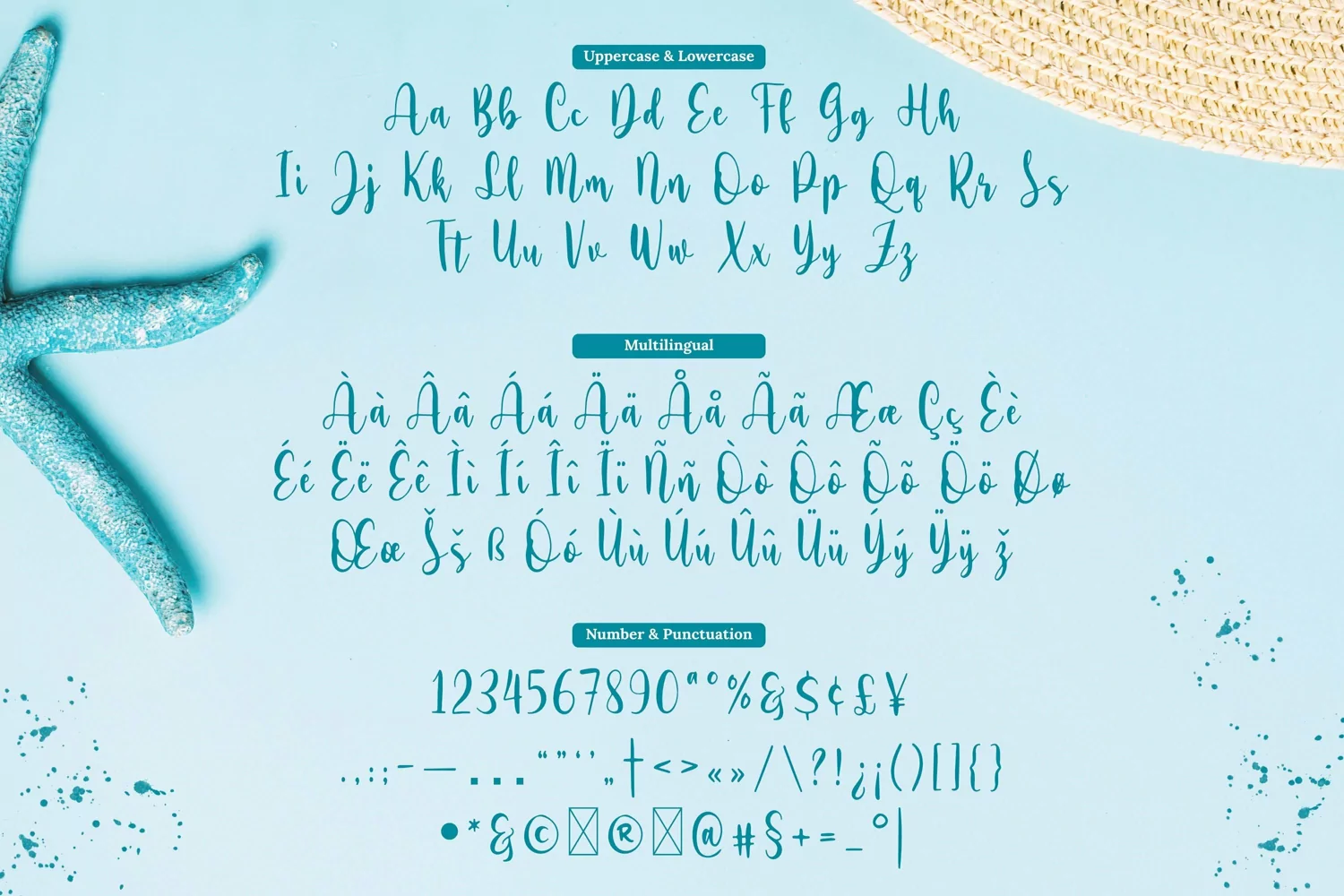
Safrone - Script Font suitable for some designs such as the logotype, brand, packaging, quotes, music poster, t-shirt, cover book and more custom design. The features uppercase, lowercase, numeral, punctuation & symbol, multilingual support.